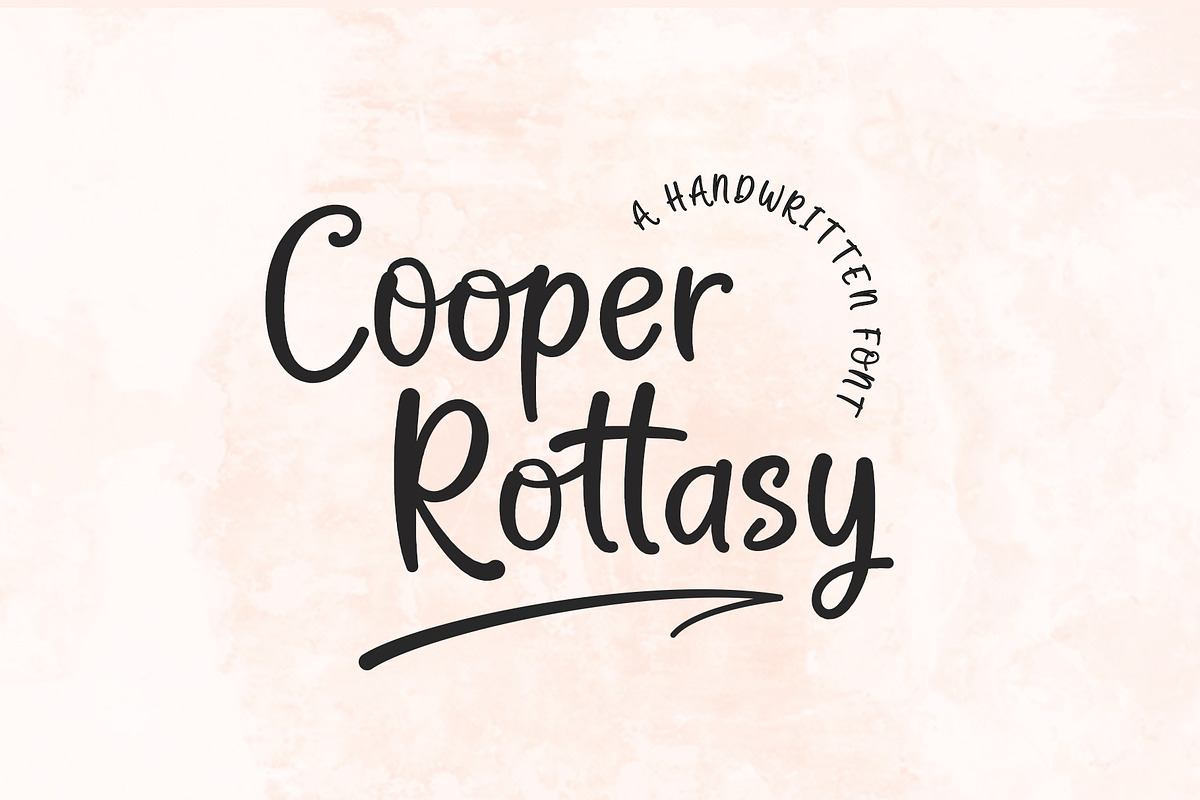
Cooper Rottasy | A Handwritten Font Free Download
Cooper Rottasy | A Handwritten Font Free Download is a stylish and unique handwritten typeface that captures the personal, artistic touch of hand lettering. With its fluid strokes and expressive character design, this font is perfect for projects such as branding, logos, invitations, posters, and any creative work that needs a more intimate, custom feel.
The slightly imperfect, organic style of Cooper Rottasy gives your typography a natural, handcrafted look, making it ideal for everything from modern casual branding to more artistic designs. Whether you're creating a personal logo, social media graphics, or promotional materials, this font adds character and charm to your text.